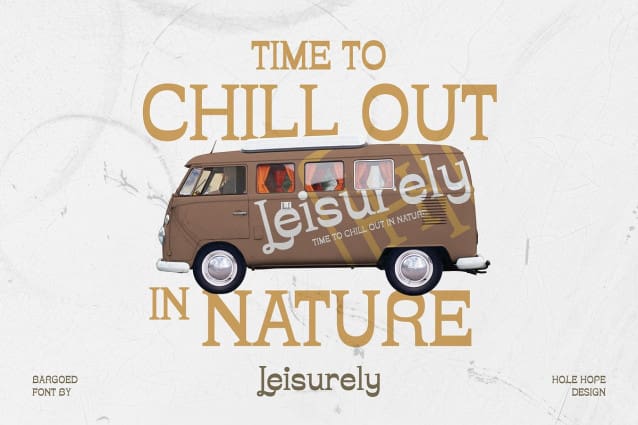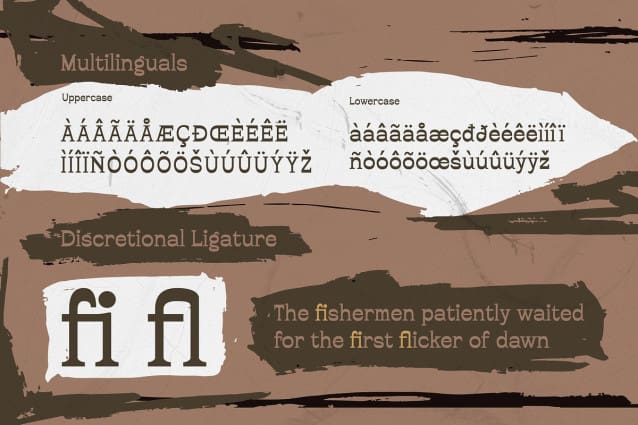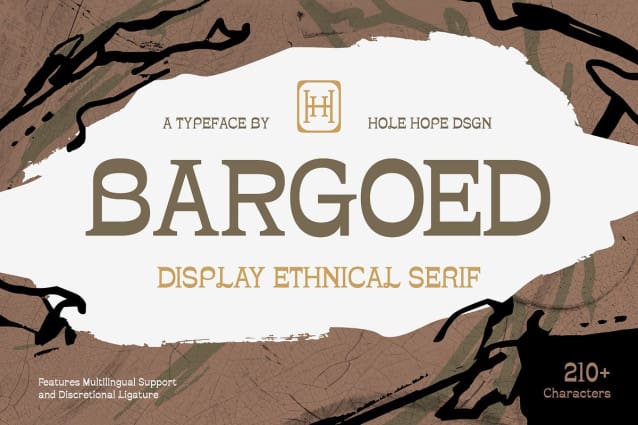
Bargoed Font
Bargoed Font, a Serif Font that effortlessly combines modern aesthetics with Folk & Ethnic. This font is meticulously crafted to bring a sense of sophistication and versatility to your creative projects.